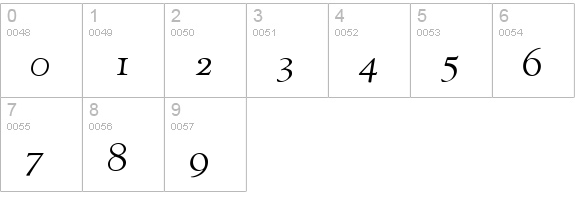
GoudyOldstyleZH-Italic Font Details
GoudyOldstyleZH-Italic is a distinctive, italic variant in the GoudyOldstyleZH typeface family \xE2\x80\x94 well suited to design and typography projects.
Goudy Oldstyle ZH Italic is a classic and elegant font that exudes sophistication and timelessness. Its slanted italic style adds a touch of flair and refinement to any design project. The flowing curves and delicate serifs of this typeface make it perfect for conveying a sense of tradition and prestige. This font is freely available for download at FontsMarket.com, making it accessible to designers and creatives looking to add a touch of old-world charm to their work. Whether you're creating invitations, advertisements, or branding materials, Goudy Oldstyle ZH Italic is sure to make a lasting impression with its timeless appeal.